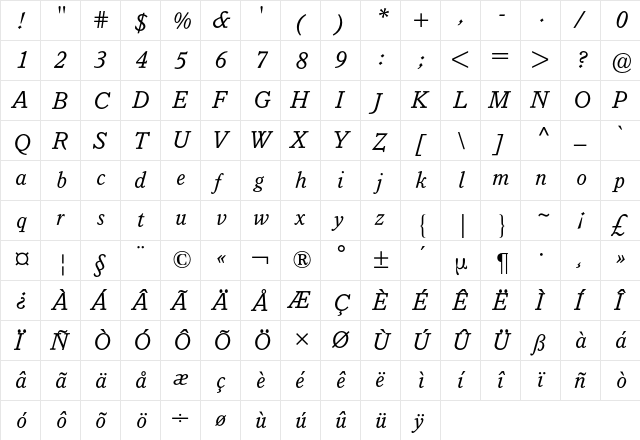
Italian Old Style BQ Regular
Design Context for Italian Old Style BQ Typeface
Italian Old Style BQ offers clean, dependable letterforms without strong stylistic allegiance, making it a practical choice for designers who need flexibility.